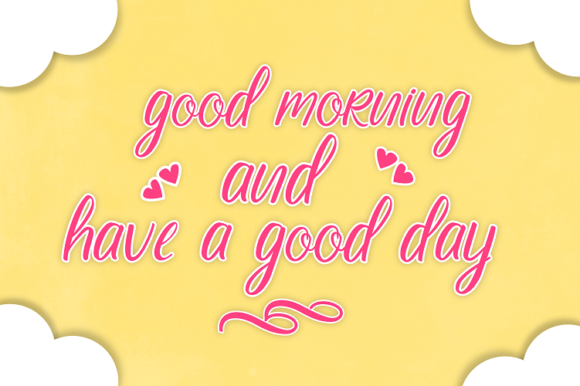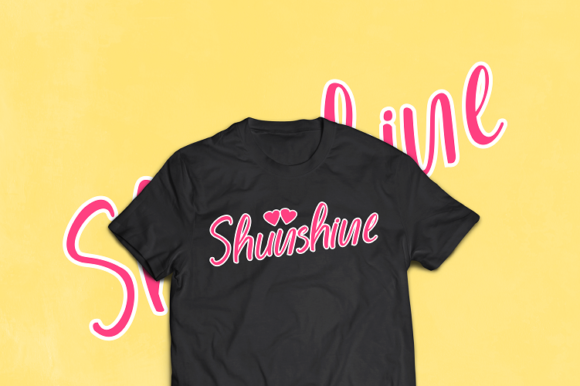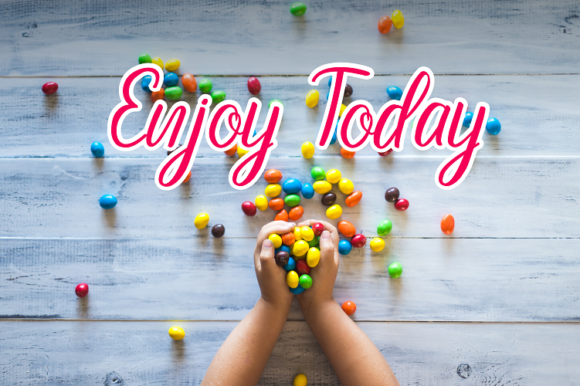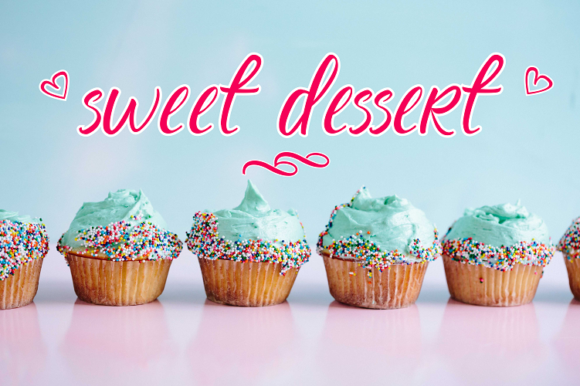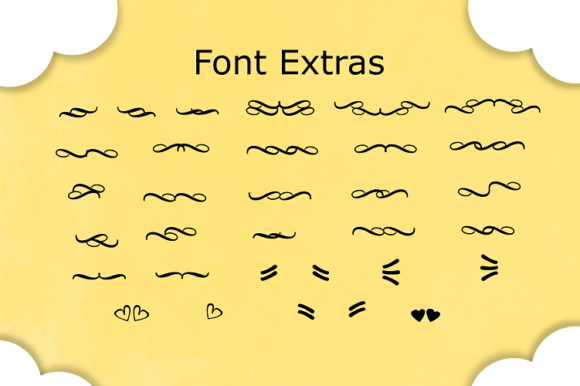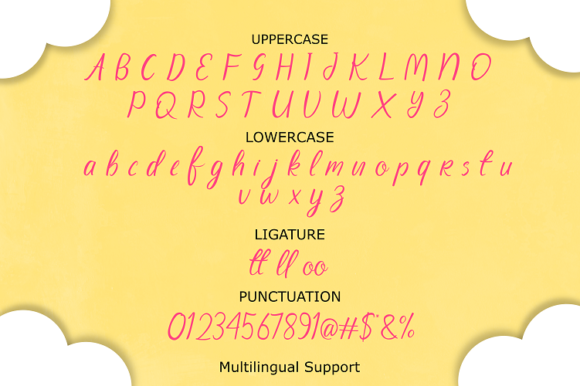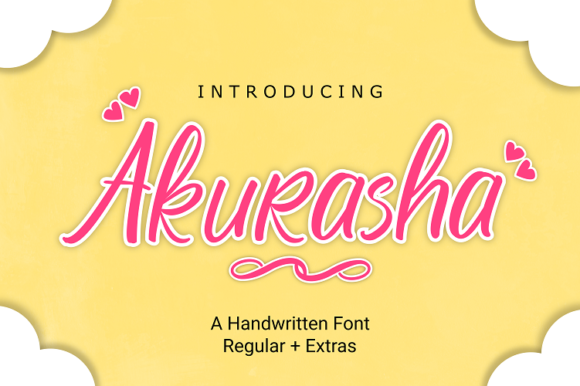
Akurasha Font: The Sweet and Charming Handwritten Font for Designers and Crafters
Are you a designer or crafter looking for a font that can add a touch of sweetness and charm to your projects? Look no further than Akurasha Font! This beautiful handwritten font is perfect for a variety of design applications, from branding and posters to crafts and quotes.
What is Akurasha Font?
Akurasha Font is a sweet and charming handwritten font that is designed to add a personal touch to your designs. Its unique and elegant lettering style makes it perfect for a wide range of projects, from romantic quotes and posters to branding and packaging.
Key Features of Akurasha Font
- Handwritten style: Akurasha Font has a beautiful handwritten style that gives it a personal and unique touch.
- Sweet and charming: The font’s sweet and charming lettering style makes it perfect for projects that require a touch of elegance and sophistication.
- Versatile: Akurasha Font is versatile and can be used for a wide range of design applications, from branding and posters to crafts and quotes.
- Easy to read: The font is easy to read, making it perfect for projects that require a clear and legible text.
Uses of Akurasha Font
Akurasha Font is perfect for a variety of design applications, including:
- Branding: Use Akurasha Font to create unique and memorable brand identities that stand out from the crowd.
- Posters: Create eye-catching posters that grab attention with Akurasha Font’s beautiful handwritten style.
- Crafts: Add a personal touch to your craft projects, such as handmade cards and gift tags, with Akurasha Font.
- Quotes: Use Akurasha Font to create inspiring and motivational quotes that are perfect for social media and blogs.
- Packaging: Use Akurasha Font to create beautiful and unique packaging designs that stand out on store shelves.
Benefits of Using Akurasha Font
Using Akurasha Font in your design projects offers a range of benefits, including:
- Unique and memorable designs: Akurasha Font’s unique and elegant lettering style helps to create designs that are memorable and stand out from the crowd.
- Emotional connection: The font’s sweet and charming style helps to create an emotional connection with your audience, making your designs more relatable and engaging.
- Flexibility: Akurasha Font is versatile and can be used for a wide range of design applications, making it a great addition to your font library.
Tips for Using Akurasha Font
Here are some tips for using Akurasha Font in your design projects:
- Use it sparingly: Akurasha Font is best used sparingly, such as in headings or titles, to add a touch of elegance and sophistication to your designs.
- Pair it with other fonts: Experiment with pairing Akurasha Font with other fonts to create unique and interesting typography combinations.
- Adjust the size and color: Adjust the size and color of Akurasha Font to suit your design needs and create visual interest.
Akurasha Font is a beautiful and charming handwritten font that is perfect for designers and crafters looking to add a touch of elegance and sophistication to their projects. Its unique and elegant lettering style makes it versatile and easy to use, and its sweet and charming style helps to create an emotional connection with your audience. Whether you’re creating branding, posters, crafts, or quotes, Akurasha Font is a great choice for any design project.